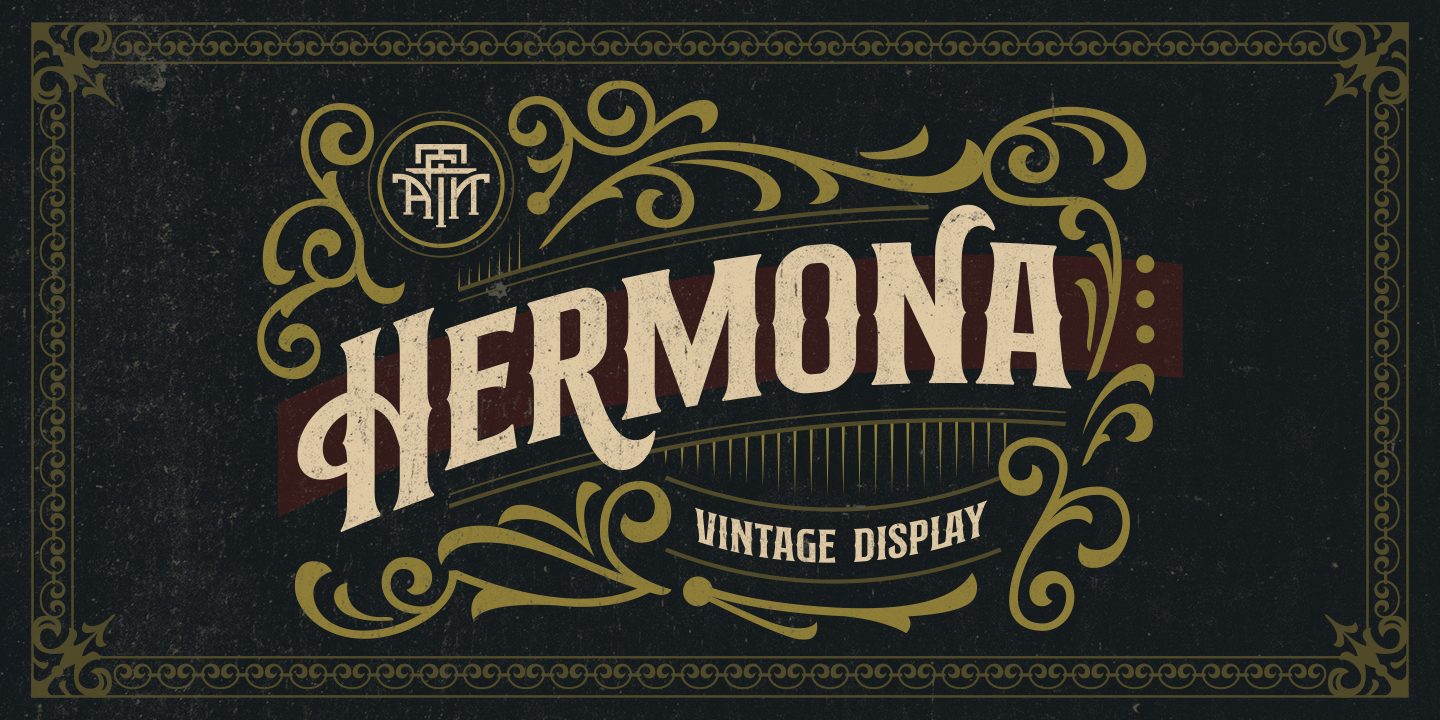
Hermona Font is perfect for luxury spa branding, high-end beauty products, premium wellness centers, sophisticated cosmetic packaging, elegant fashion magazines, upscale salon communications, refined lifestyle brands, exclusive retreat materials, opulent jewelry advertisements, and sophisticated feminine marketing campaigns.
Hermona Font is exciting because it embodies timeless feminine elegance with its gracefully refined letterforms that flow like silk and whisper of sophisticated luxury and understated power. Its exquisitely crafted character design captures the essence of feminine strength wrapped in elegant sophistication, creating a distinctive voice that speaks to discerning women who appreciate both beauty and substance in their lifestyle choices.
Hermona Font family includes thin, light, regular, medium, bold, and black weights, each with corresponding italic versions. The font family also features elegant ornaments, sophisticated ligatures, feminine decorative elements, and luxury symbols that enhance its refined aesthetic and versatility.
This sophisticatedly feminine typeface represents the perfect fusion of elegant beauty and contemporary strength. Hermona Font Free Download enables designers to experience its luxurious appeal before making a commercial commitment. The font's ability to convey both feminine grace and modern sophistication makes it ideal for brands targeting discerning women who value quality, elegance, and empowerment.
Whether you're developing luxury beauty brand identities, creating high-end wellness materials, or designing sophisticated feminine communications, Hermona Font brings an unmistakable sense of refined elegance and feminine power to every project. Its graceful character and sophisticated heritage create emotional connections that resonate with women seeking authentic luxury and meaningful beauty experiences.
The font's versatility excels in luxury and wellness environments where elegance and feminine empowerment are essential. Its sophisticated character makes it particularly effective for premium beauty brands, luxury spas, high-end fashion labels, and wellness companies seeking to establish authentic relationships with sophisticated, empowered women.
For designers working on projects requiring genuine feminine elegance and luxury appeal, Hermona Font offers an exceptional solution. Its refined presence and comprehensive luxury-themed elements provide the tools needed for creating truly sophisticated communications, while its feminine strength ensures your designs capture the perfect balance of grace and power that defines modern sophisticated women.